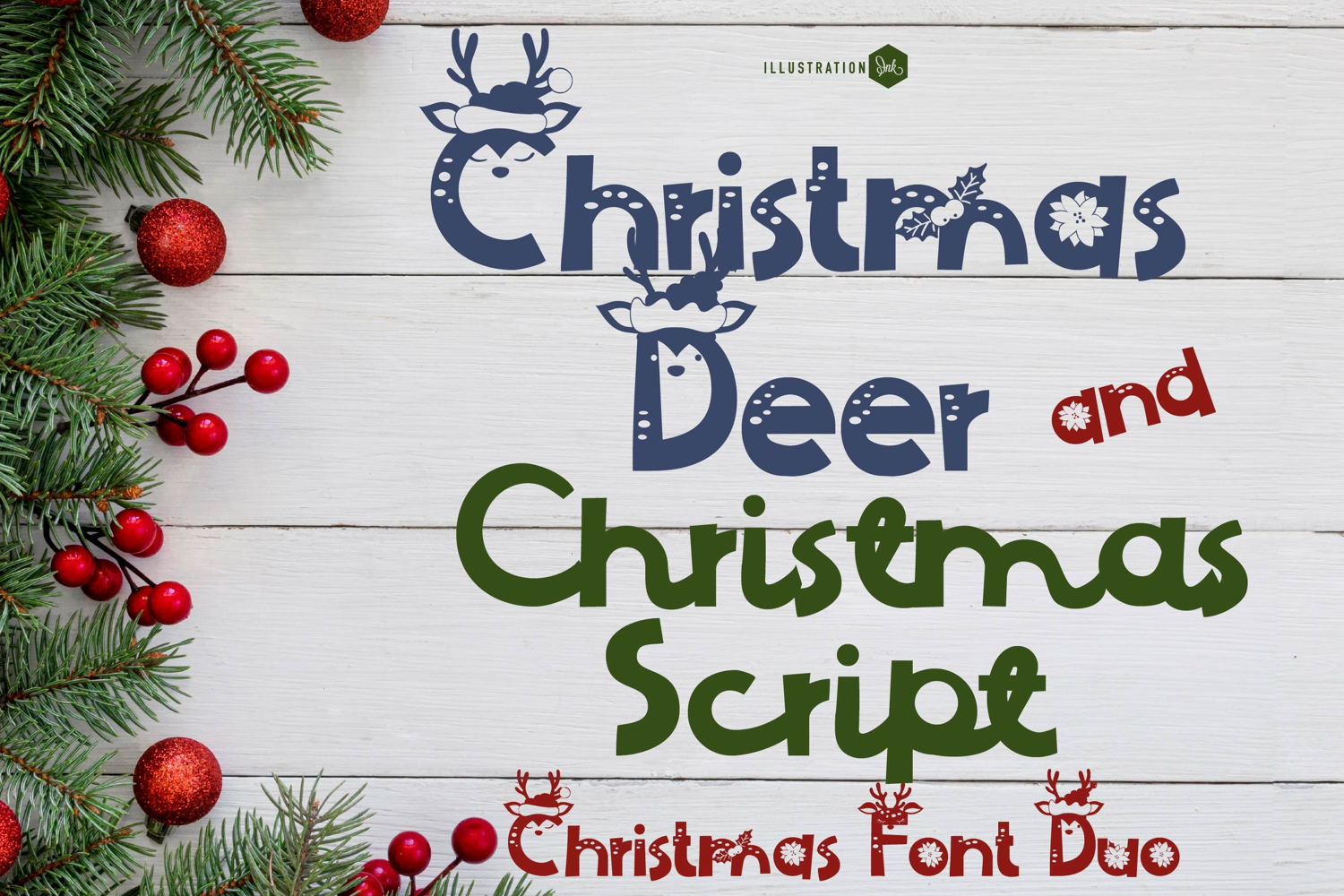
Christmas Deer Font Duo
This hand-crafted font duo combines a reindeer-esque sans serif, a serif version and a perfectly coordinated script. Bonus tag dingbat font included! With all family members combined of the 2 fonts, you get 6 fonts all together!
Hand-crafted fonts can be either formal or informal, and they can be used for a variety of purposes. Some of the characteristics of handwritten fonts include: The letters are not perfectly uniform in size or shape. There may be slight variations in the spacing between letters and words. The font may have a "wiggly" or "squiggly" appearance. The font may be difficult to read at small sizes. Handwritten fonts can be a great way to add a casual touch to your designs. They can also be used to create a sense of nostalgia or whimsy. However, it is important to choose a handwritten font that is appropriate for the project you are working on. A formal handwritten font may not be appropriate for a casual invitation, while an informal handwritten font may not be appropriate for a corporate document.
• The letters are not perfectly uniform in size or shape.
• There may be slight variations in the spacing between letters and words.
• The font may have a "wiggly" or "squiggly" appearance.
• The font may be difficult to read at small sizes.